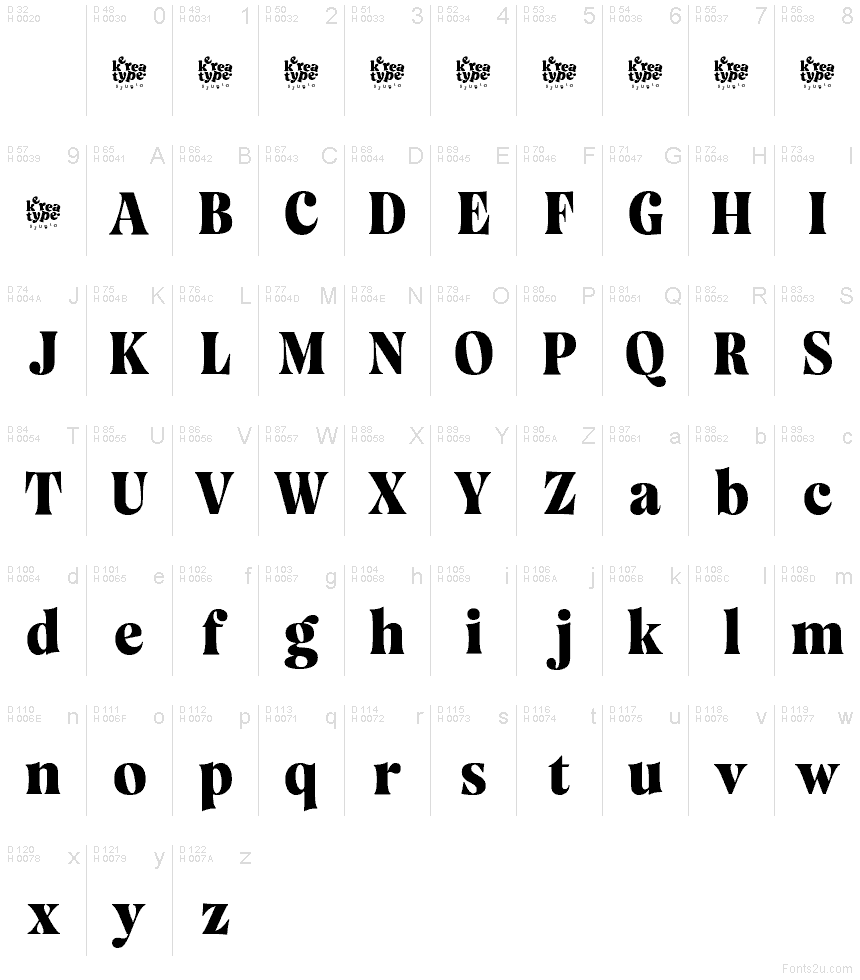
Mazaeni Demo Semi Bold
Mazaeni Semi Bold font by Kereatype Studio is a free old-school serif font. Built around commanding wedge-cut serifs and tightly edited curves, it balances inky weight with crisp tapering so titles land with authority without feeling stiff. The compact rhythm and high contrast carve a rich, shadowy texture, giving the Mazaeni family a luxe, bookish bite that reads instantly premium.
Using Mazaeni Semi Bold, headlines snap into place on editorial covers, boutique branding, poster titles, wine labels, restaurant menus, and vintage-inspired packaging. Its sturdy spacing holds up at large sizes while the sculpted serifs add just enough drama for standout wordmarks. This free font shines on restrained color palettes; pair it with a neutral grotesk sans to keep layouts clean and let the serif do the storytelling.